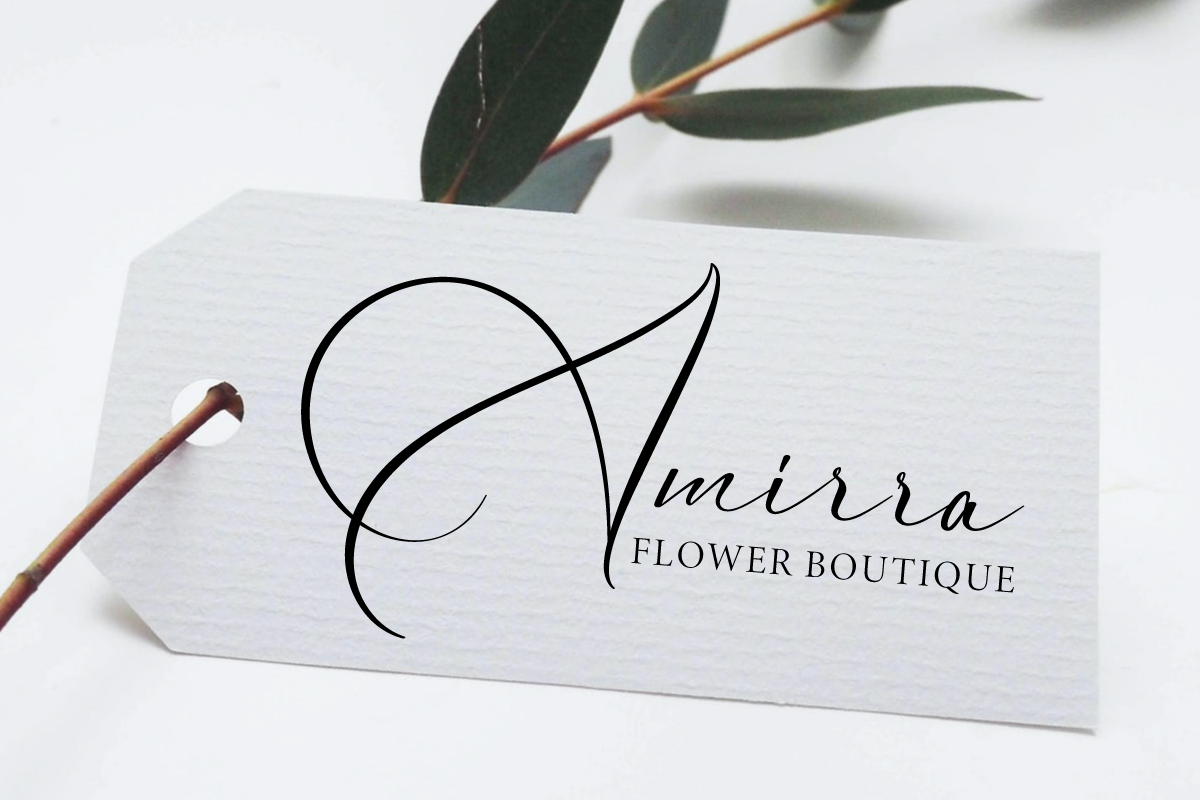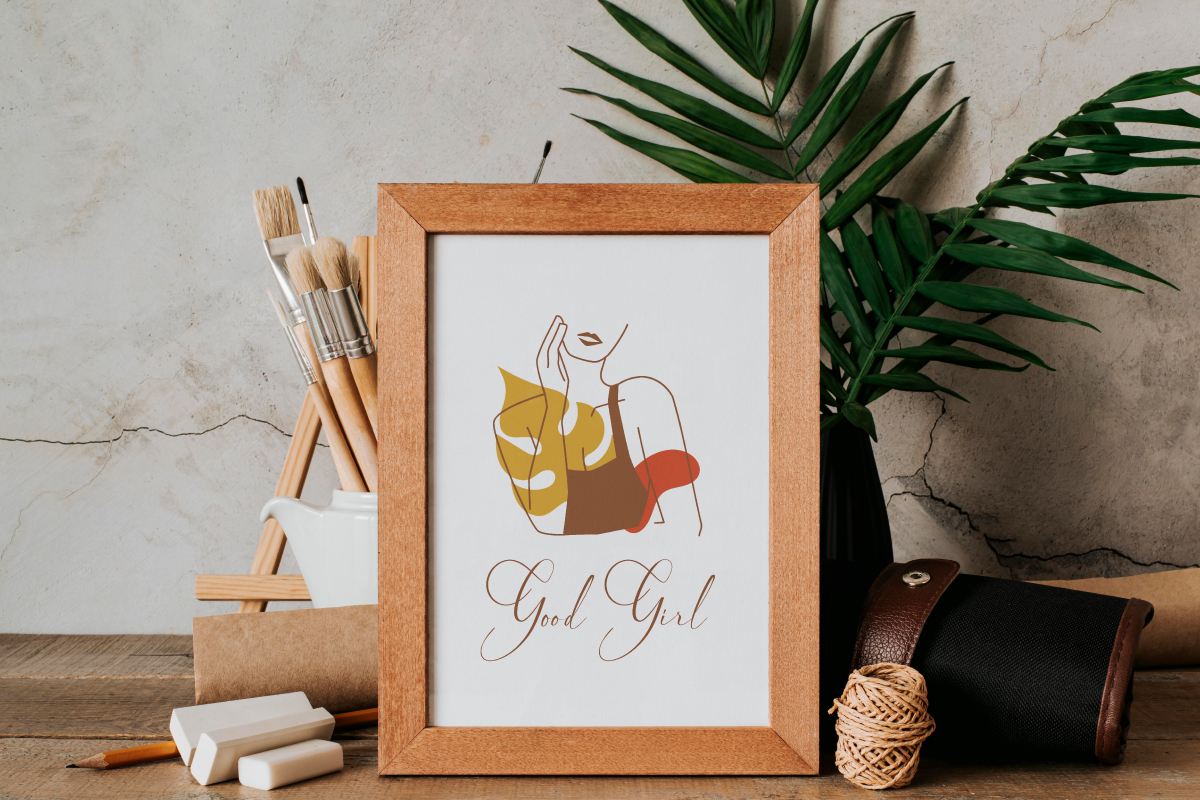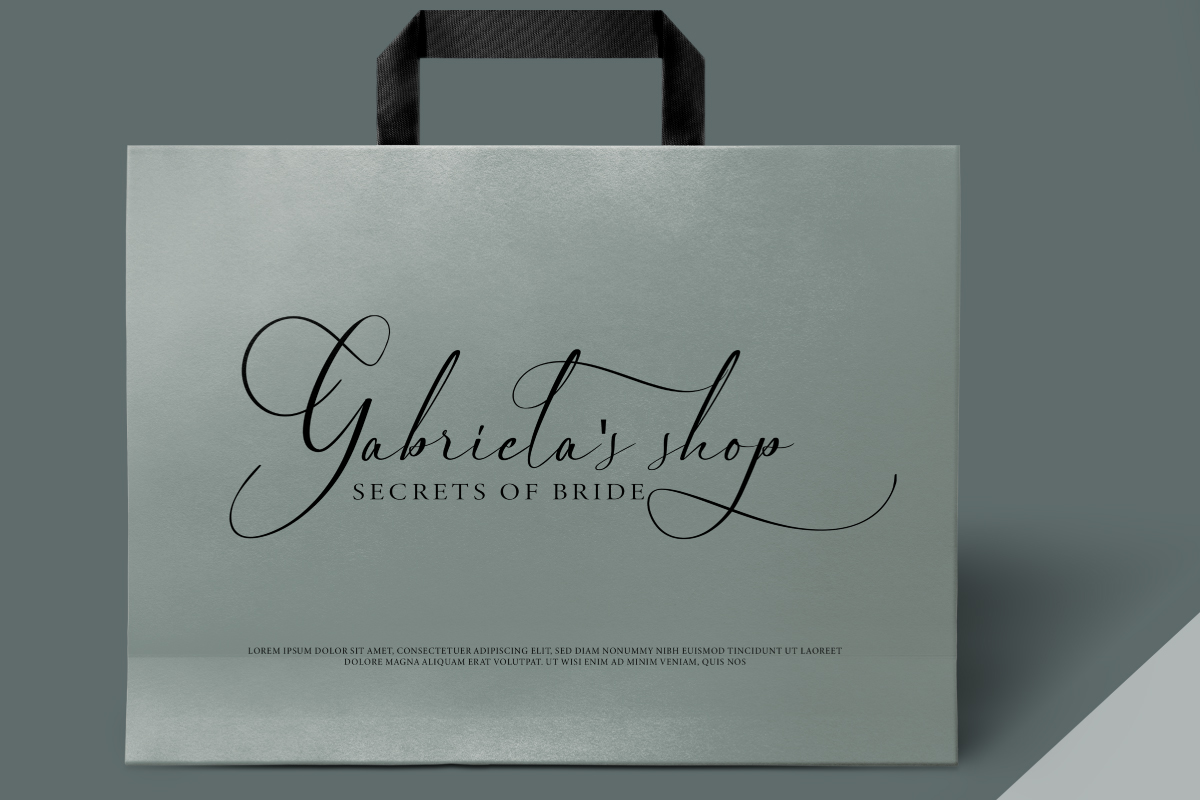
Anniversary Day Font
Anniversary Day Script Font
It’s a stunning signature calligraphy font which has stunning look. This font is crafted carefully in every its single letter so we can make sure it has great looking, inspired by lovely wedding letterings. Carefully designed to work together in harmony and This one should make your designs instantly professional and jaw-dropping!
Anniversary Day Signature Font includes full set of Uppercase and Lowercase Basic Characters, Numerals and Punctuation. Also it contains ligatures to make it flowless characters to perfectly make awesome look that add more aesthetic fonts to perfect your extraordinary project. Anniversary Day Font will be great for writer, musician, singer, CEO, composer, architect, etc